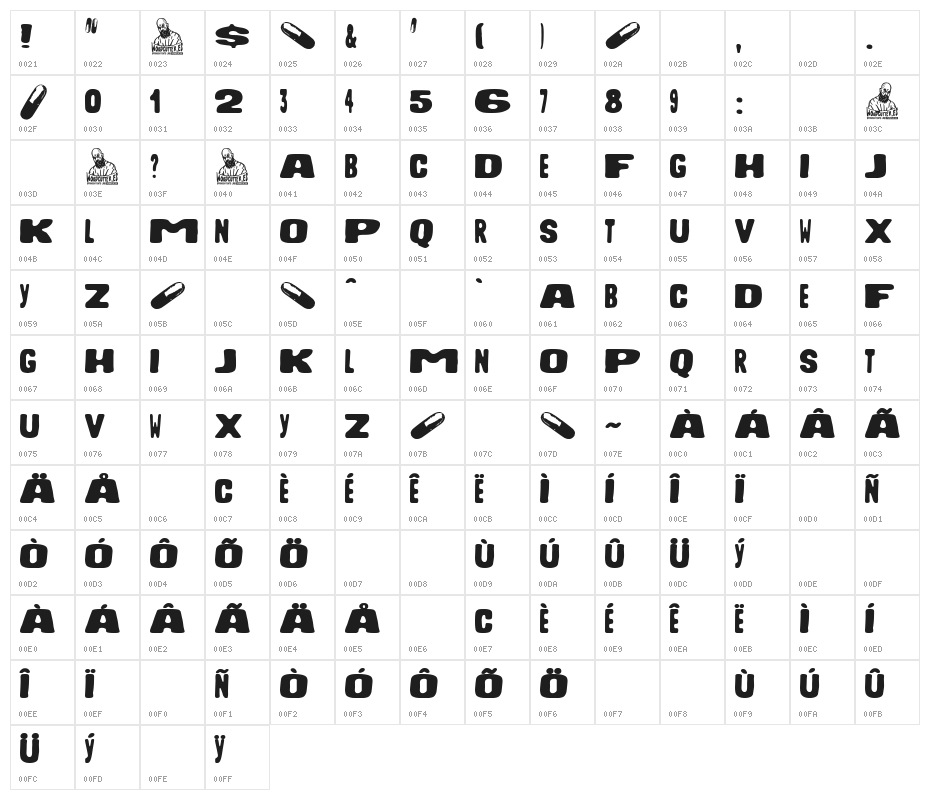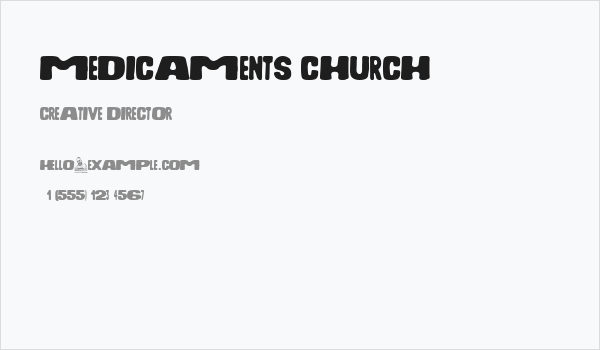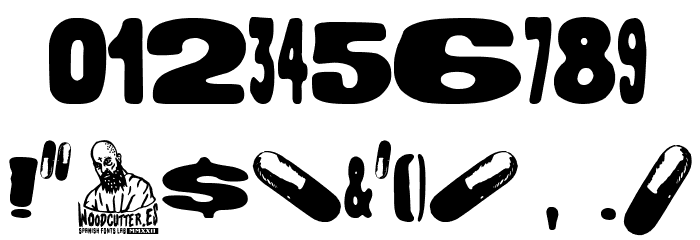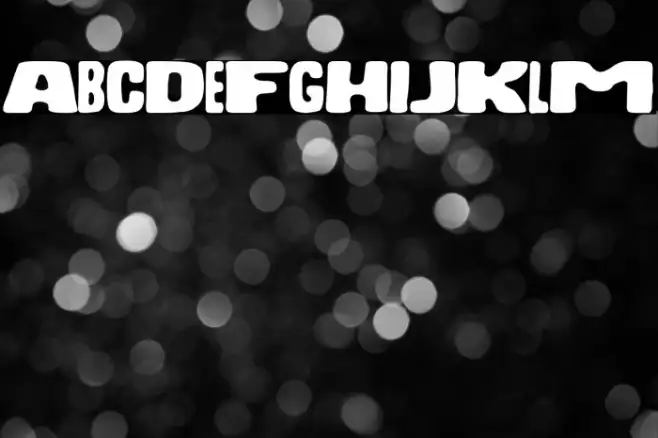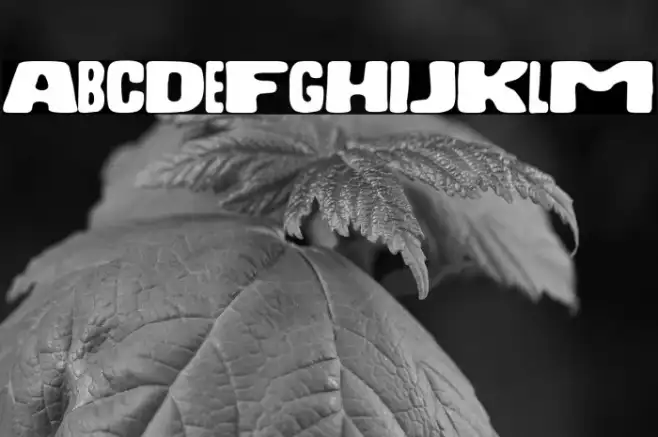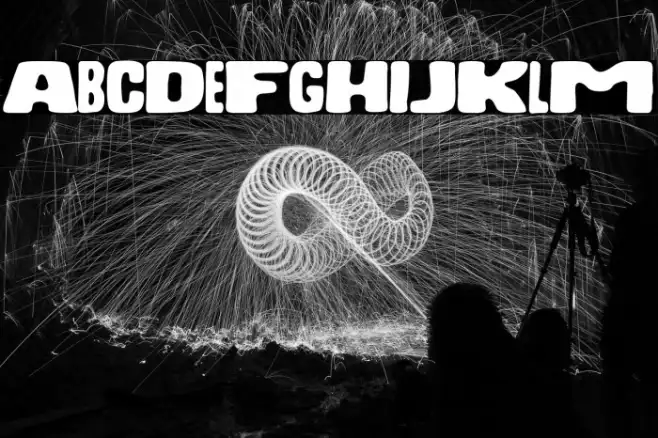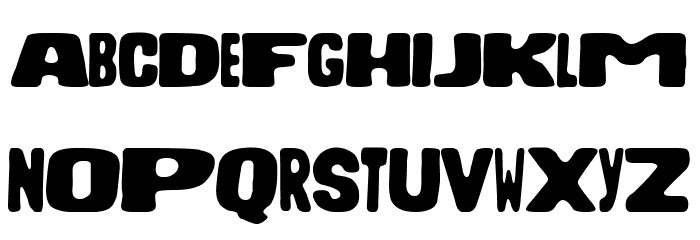
Medicaments Church Font
Medicaments Church Description
This font features a bold, chunky style with rounded edges, giving it a playful and informal appearance. The characters are heavily weighted, creating a strong visual impact. The uppercase and lowercase letters maintain a consistent width, while the numbers and special characters follow the same bold aesthetic. The overall design is reminiscent of retro or vintage styles, with a modern twist that makes it suitable for eye-catching headlines or creative projects.
| Overall Style | Retro, Modern |
| Proposed Projects | Ideal for posters, logos, packaging, and any design that requires a bold, attention-grabbing typeface. |